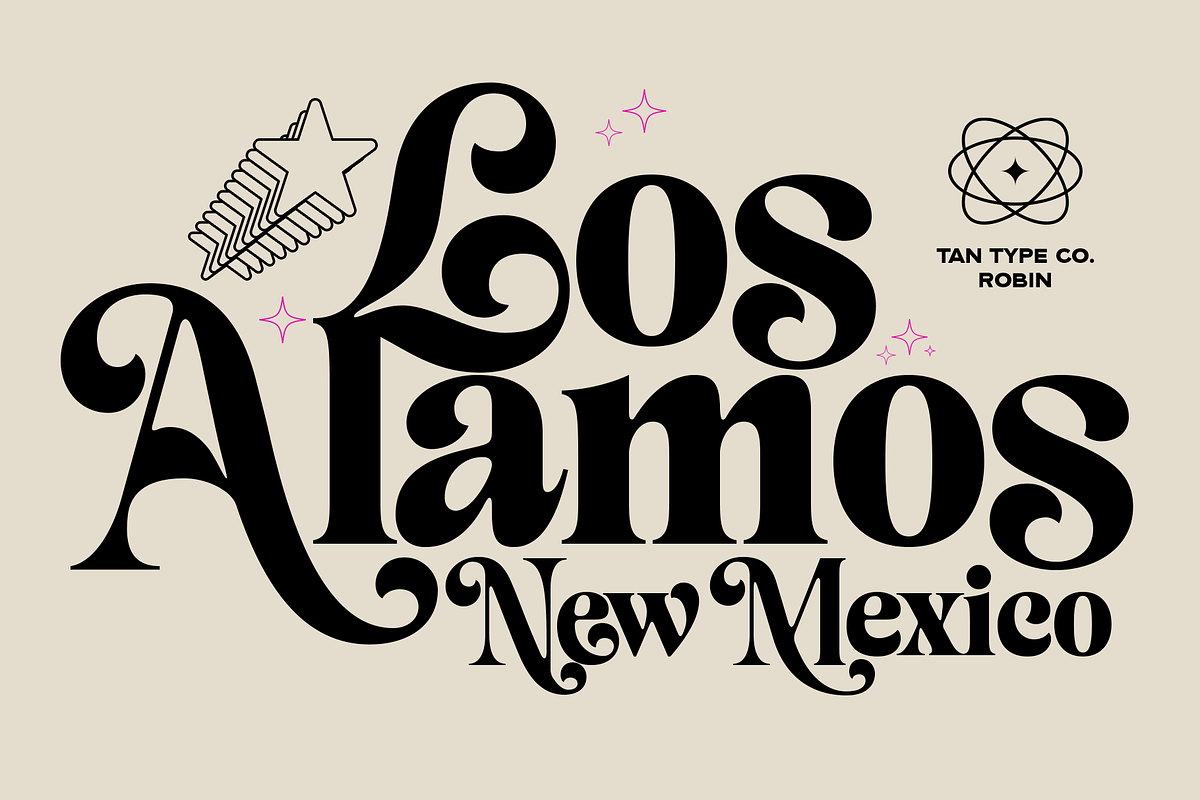
TAN - ROBIN
TAN-Robin is a bold retro display typeface designed to make a strong visual statement. With its thick strokes, soft curves, and distinctive character shapes, Robin delivers a nostalgic feel while remaining clean and confident. This font is perfect for logos, posters, packaging, headlines, album covers, and branding projects that need a vintage touch with high impact. Robin works best at large sizes and shines in creative layouts where personality matters. Whether you’re aiming for a playful, classic, or eye-catching look, Robin brings timeless retro charm to your designs.